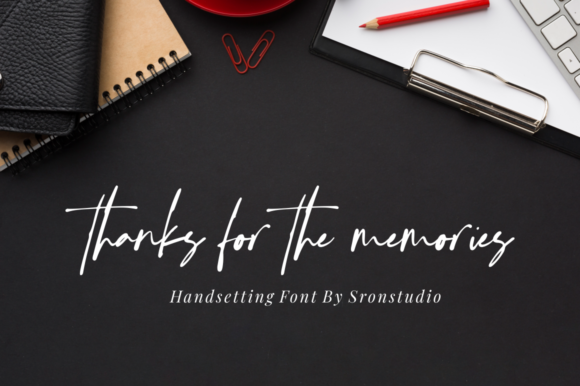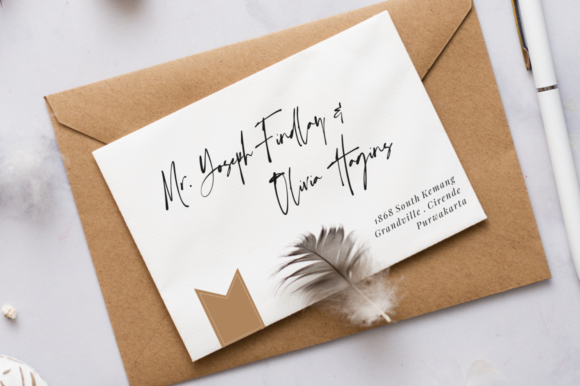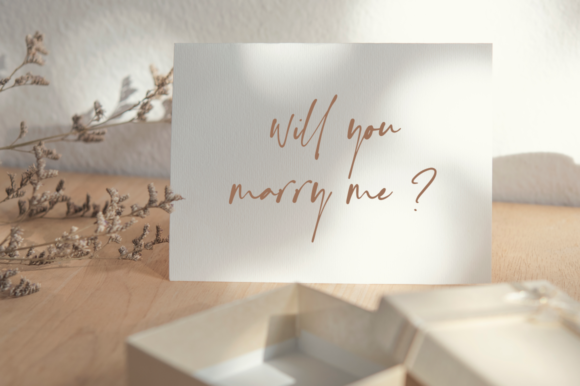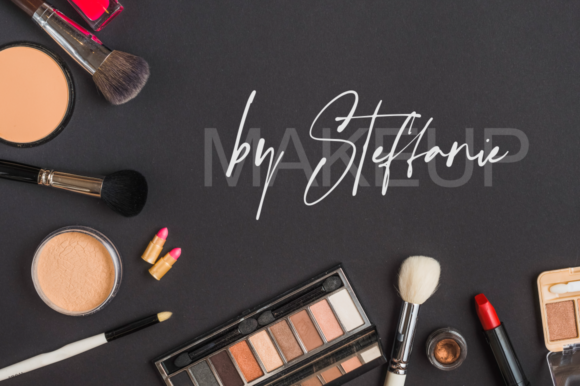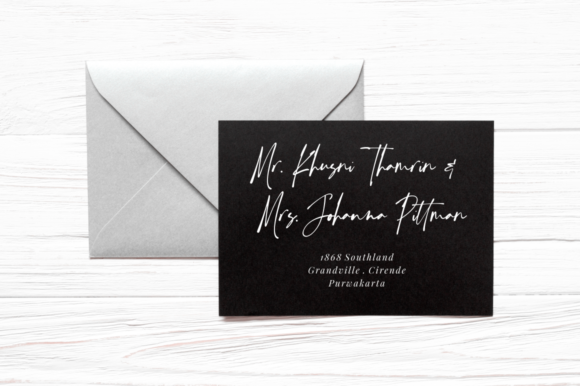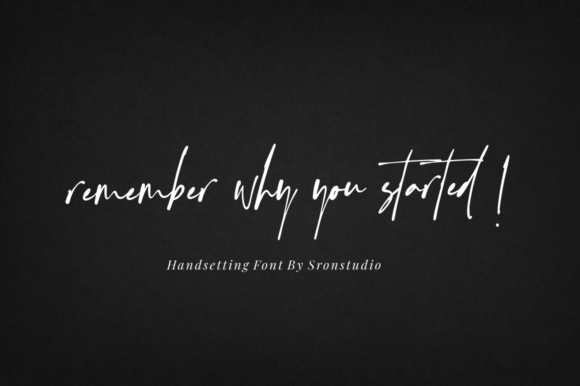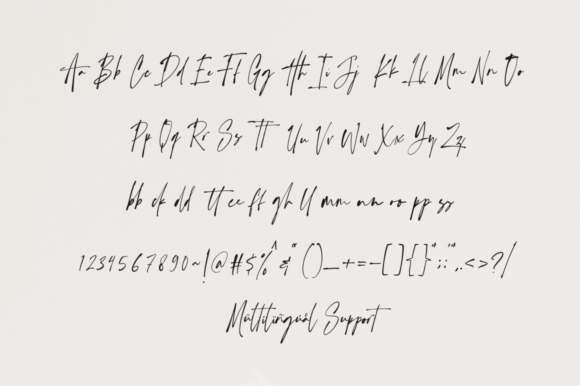
Handsetting Font
About Handsetting Font
Handsetting is a relaxed and timeless handwritten font. It is the best choice for creating eye catching logos, branding and quotes. Every letter has a unique and beautiful touch, which will make your design stand out!